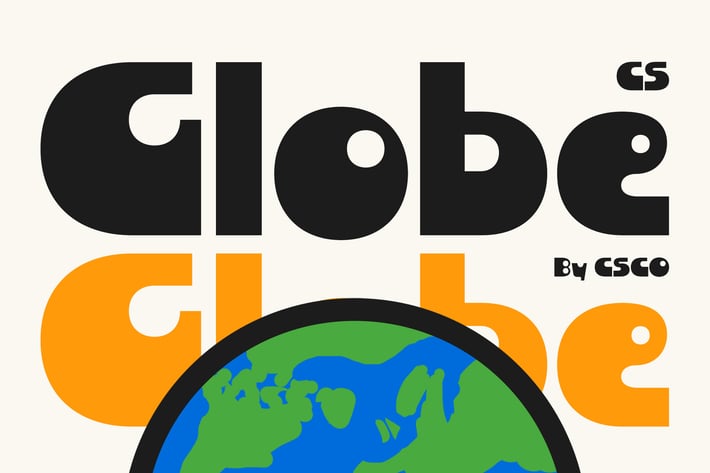
Globe – Bold Font
Globe Font: A Bold Expression of Creativity and Fun
Dynamic and Funky Design
Globe is a modern sans serif display font that stands out with its bold and funky design, making it an excellent choice for creative projects that seek to make a lasting impression. With its thick, sturdy characteristics, this font commands attention and radiates confidence, ensuring that your message is not just seen but truly felt.
Cheerful and Playful Aesthetic
The playful shapes of Globe add a unique touch, infusing each letter with a cheerful and enjoyable vibe. This delightful aesthetic is perfect for designs that aim to convey a sense of joy and whimsy, making it particularly suitable for projects such as event posters, vibrant packaging, and promotional materials. The combination of boldness and playfulness allows Globe to effortlessly capture the essence of fun and creativity, ensuring that it resonates with audiences of all ages.
Versatile for Various Creative Applications
Whether you’re designing eye-catching advertisements, dynamic social media graphics, or engaging merchandise, Globe provides the versatility needed to shine in a variety of contexts. Its strong visual impact makes it ideal for headlines and focal points, while its playful nature complements themes of creativity and innovation, encouraging a positive emotional response from viewers.